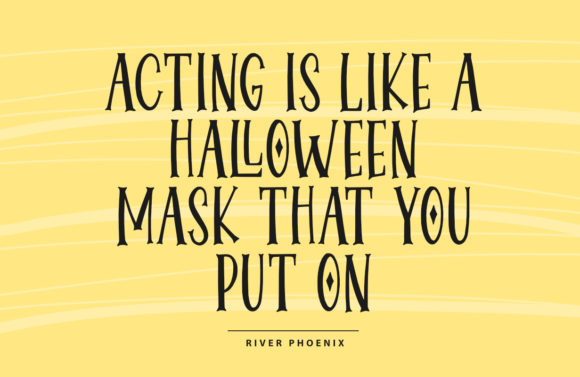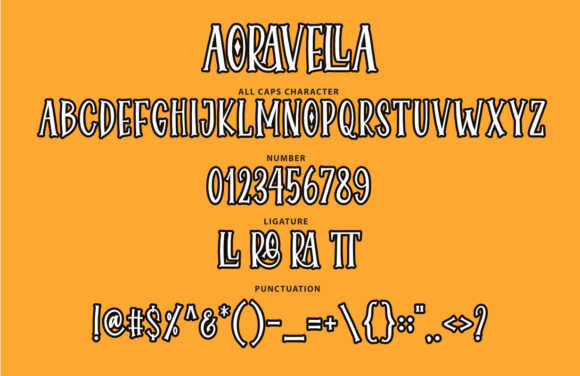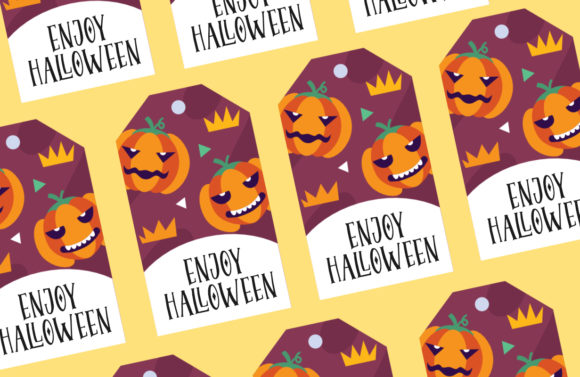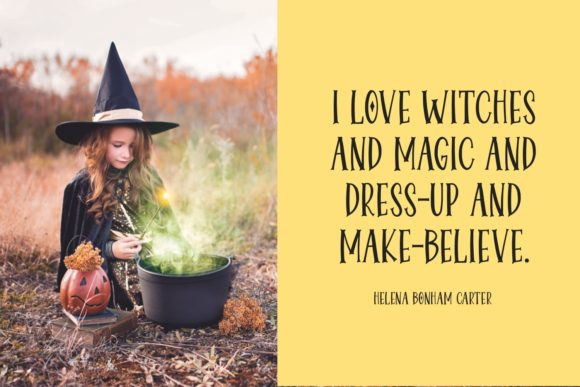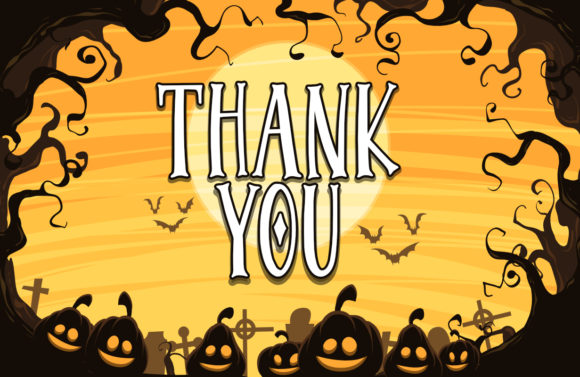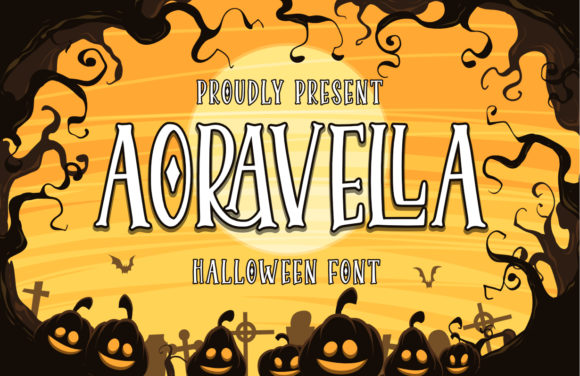
The Aoravella Font: A Simple yet Powerful Addition to Your Design Arsenal
I’ll never forget the time I was working on a branding project for a new coffee shop. I had spent hours perfecting the logo, but something was off. The font I had chosen just wasn’t doing justice to the beautiful design. I scoured the internet for the perfect font, and that’s when I stumbled upon Aoravella. This simple and neat lettered display font has been a game-changer for me ever since. In this article, I’ll share with you why I love Aoravella, its features, and how to make the most of it in your designs.
An Honest Review of Aoravella
What I Love About Aoravella
• ✨ Simple yet elegant design: Aoravella’s clean lines and minimalist approach make it perfect for a wide range of design projects.
• ✅ Highly versatile: Whether you’re working on a logo, a poster, or a social media graphic, Aoravella fits right in.
• 💡 Instant recognition: The font’s unique lettering style makes it instantly recognizable and memorable.
While Aoravella is an excellent font, it’s not without its quirks. Here are a few things to keep in mind:
• 🤔 Limited use in body text: Aoravella is best used as a display font. Its simplicity makes it less suitable for longer blocks of text.
• ⚠️ Glyph limitations: While Aoravella has a range of glyphs, it may not have every special character you need. Be sure to check the font’s capabilities before committing to a project.
The Backstory of Aoravella
Aoravella was designed with the intention of creating a simple yet powerful font that could be used for a wide range of design projects. Its creator wanted to craft a font that was both elegant and approachable, making it perfect for designers, crafters, and creative hobbyists alike.
Q: What type of projects is Aoravella best suited for?
A: Aoravella is perfect for branding, advertising, and digital designs. Its simplicity and elegance make it a great choice for logos, posters, and social media graphics.